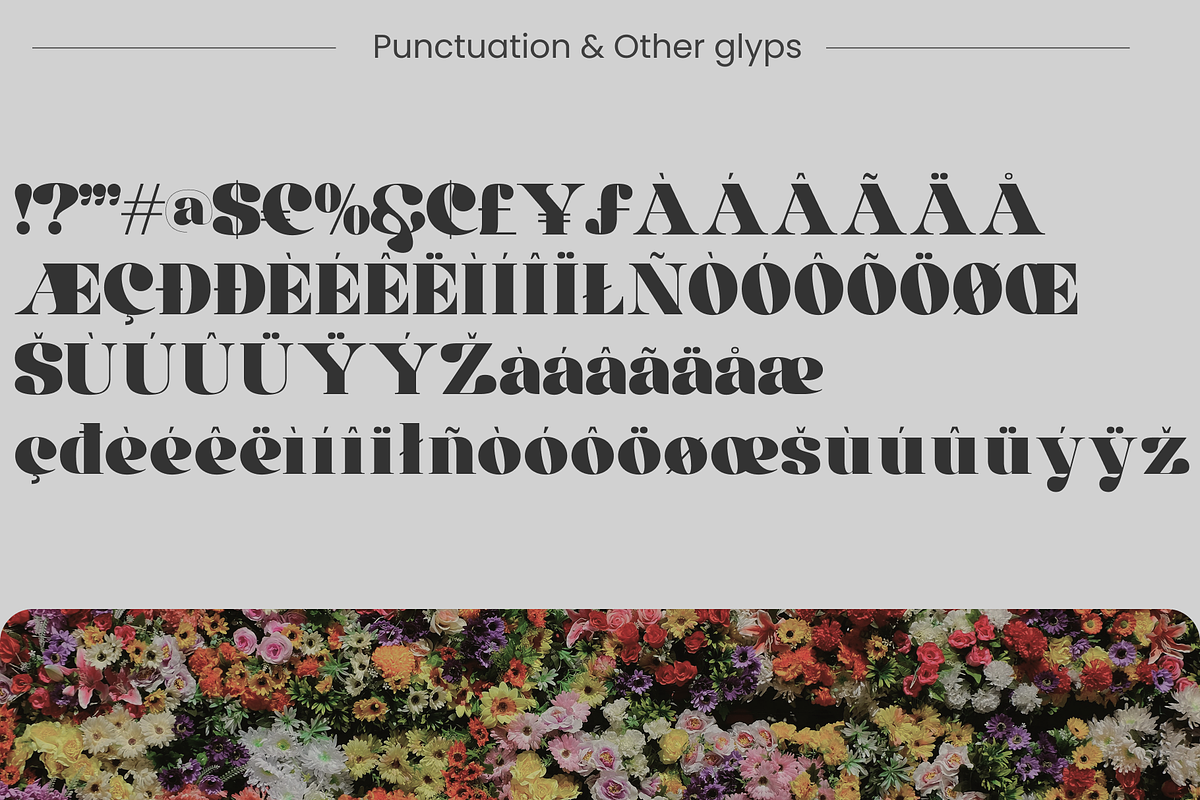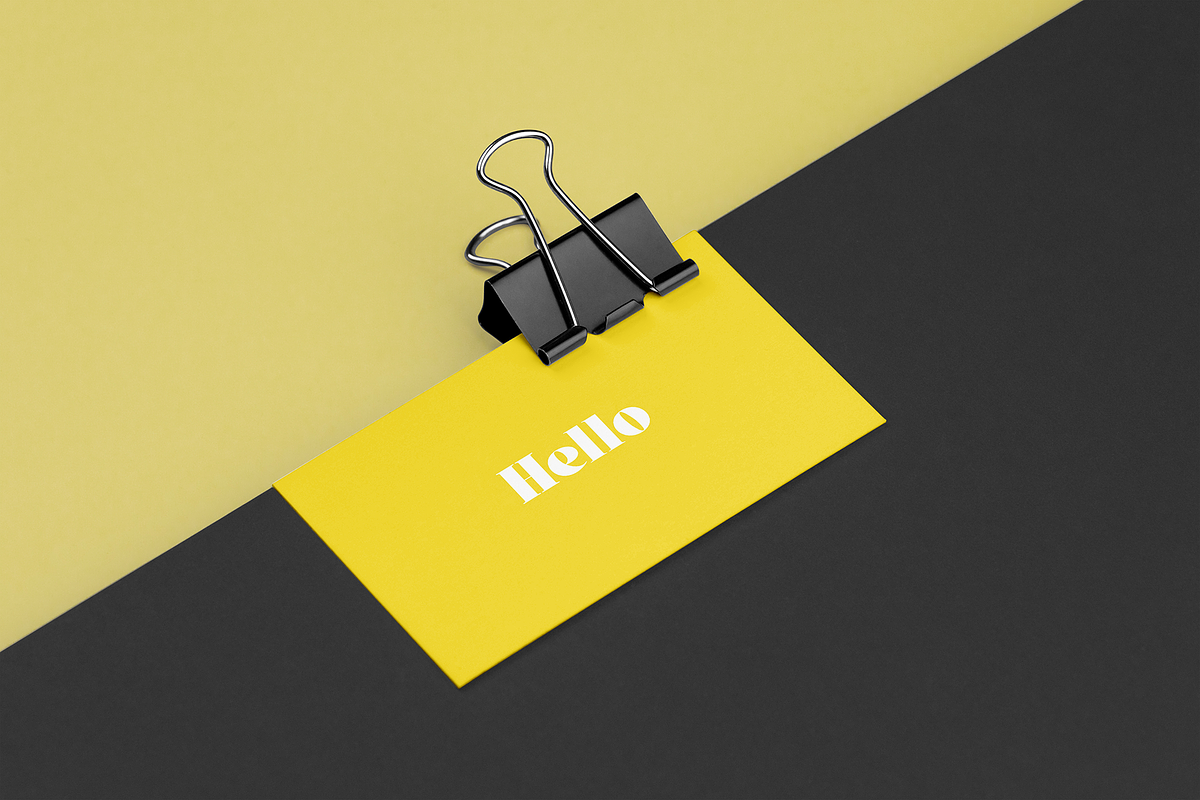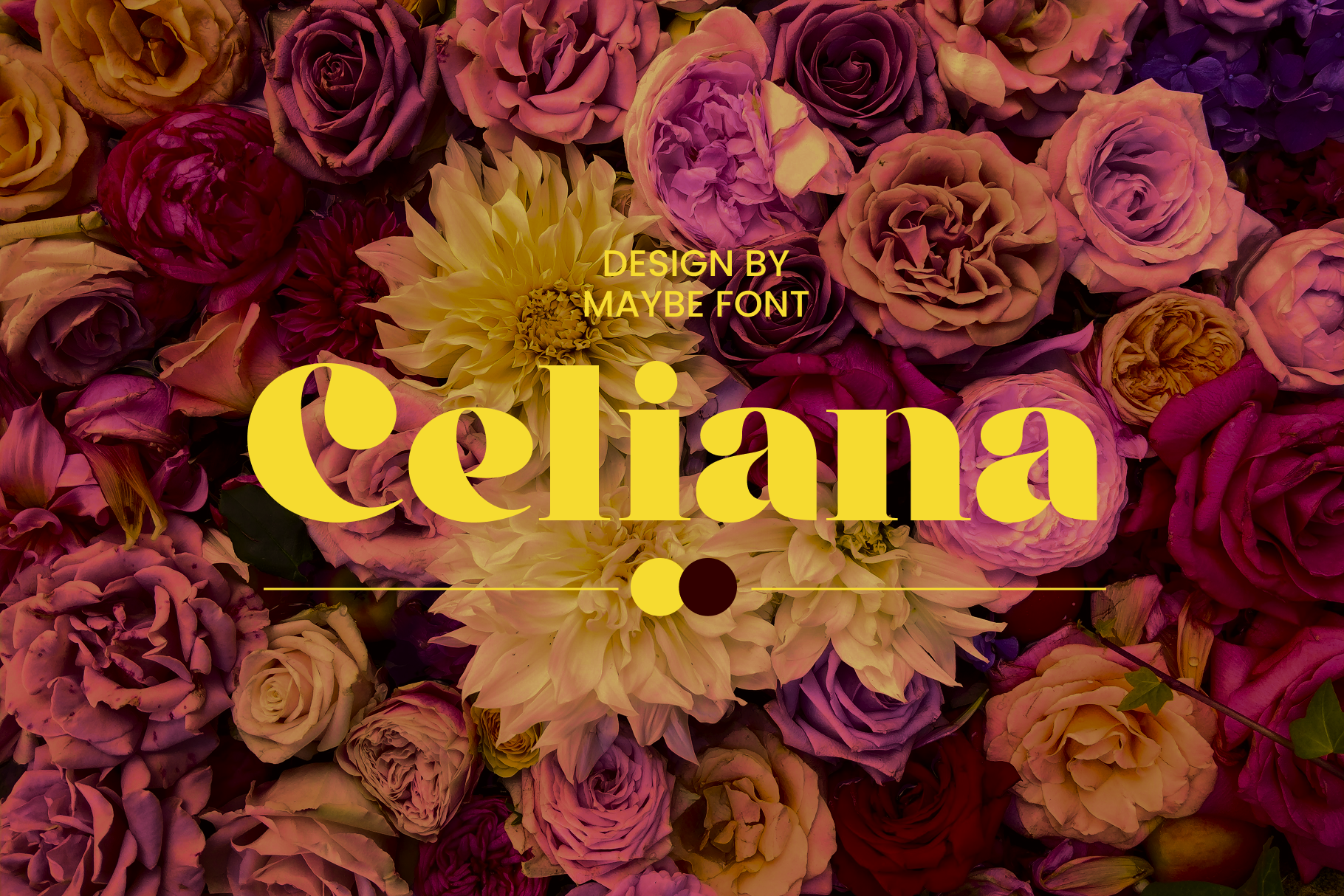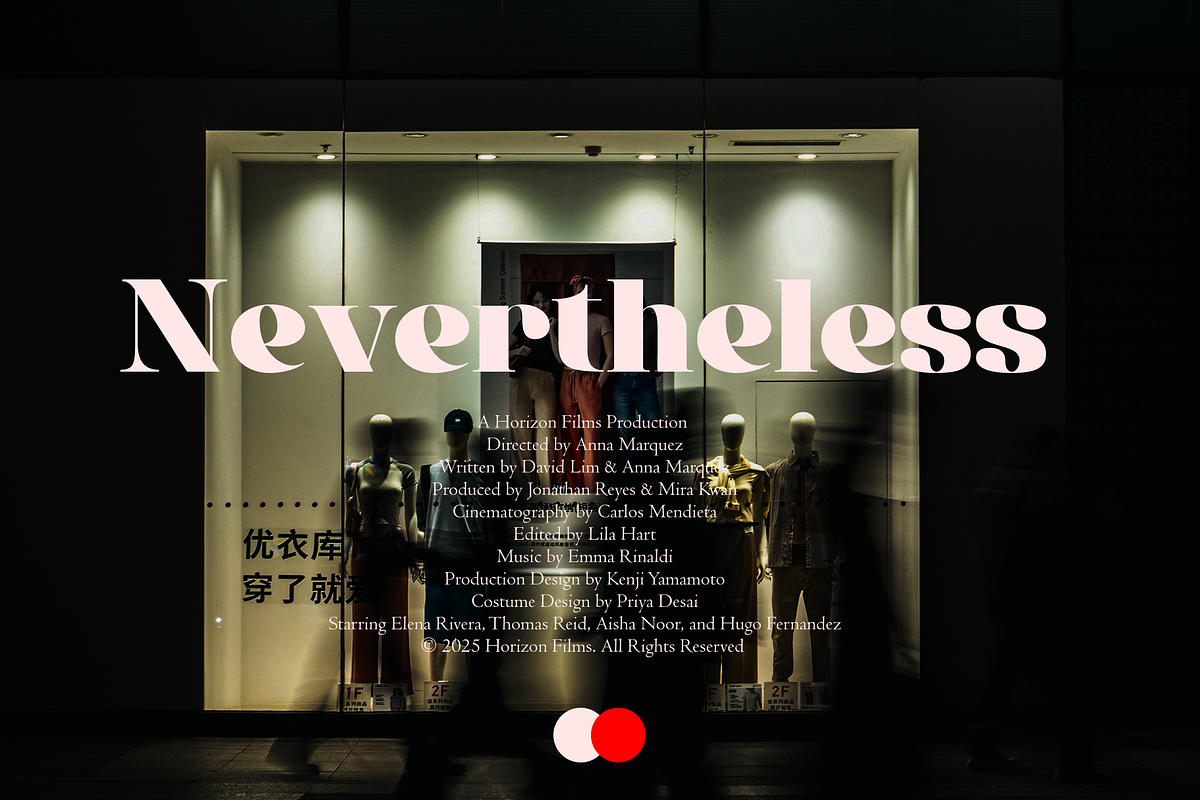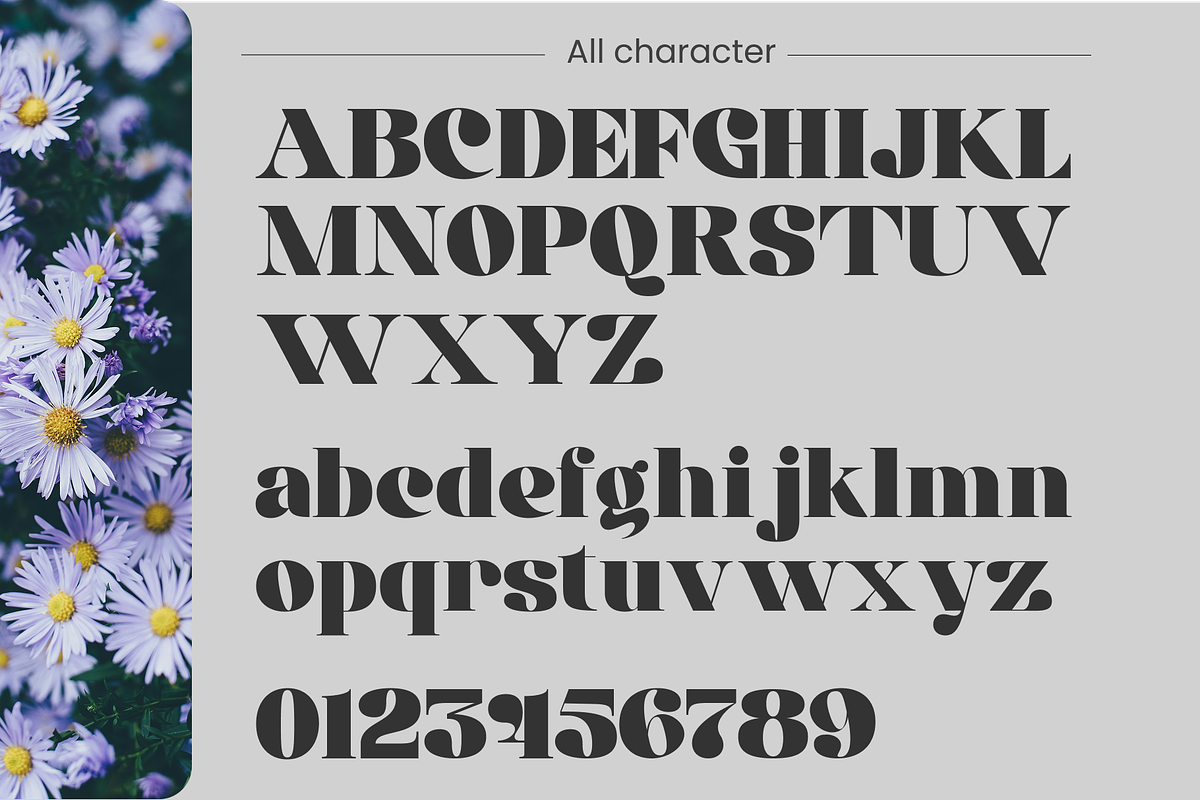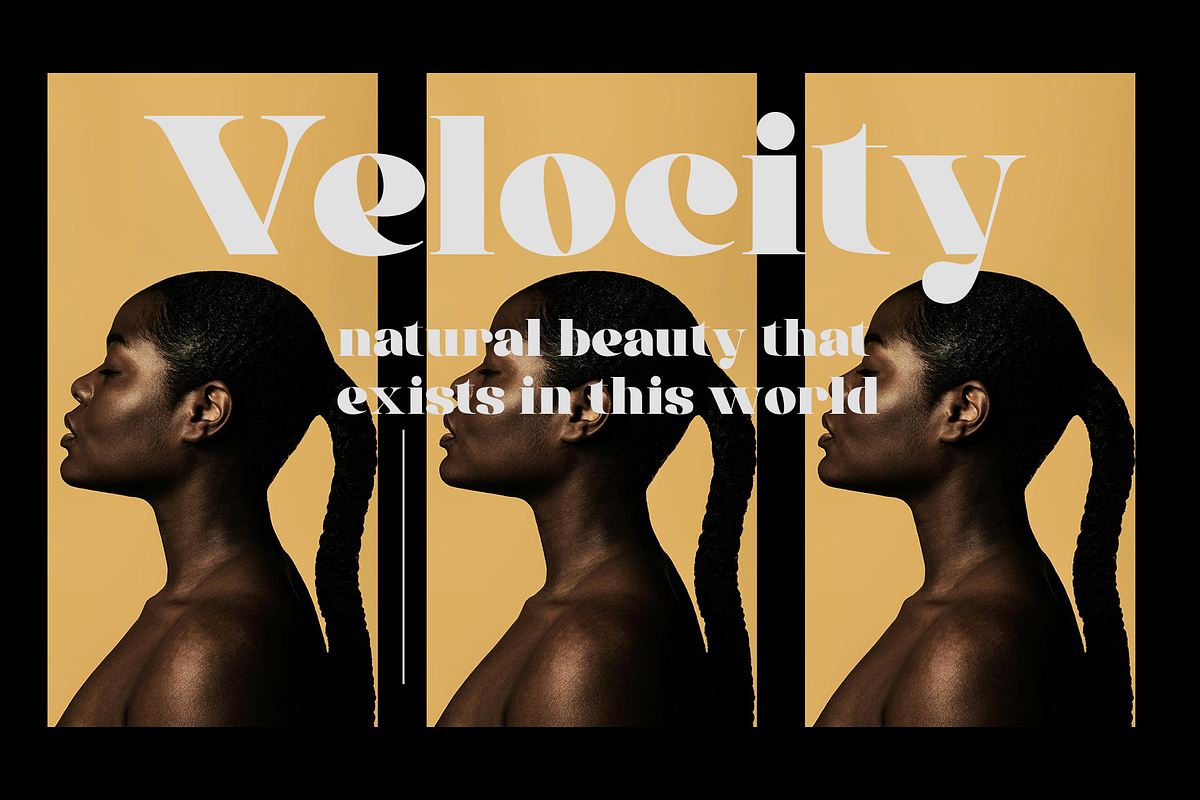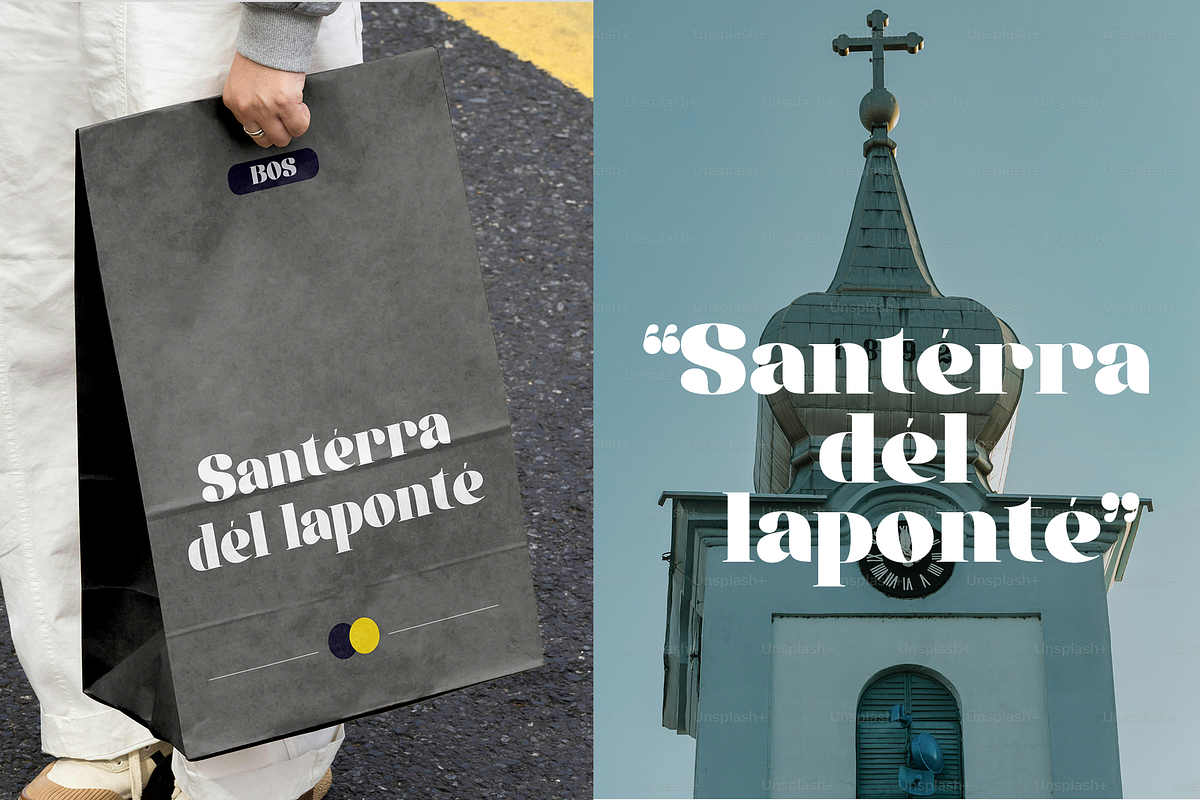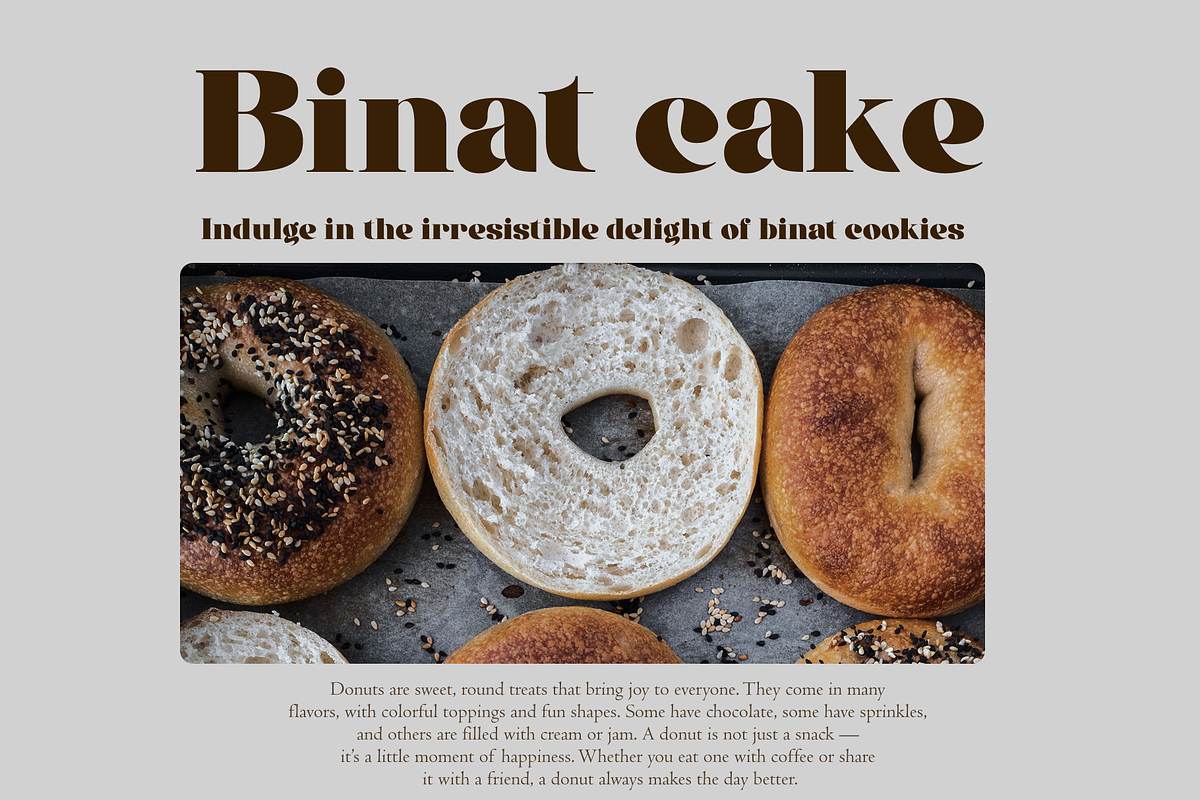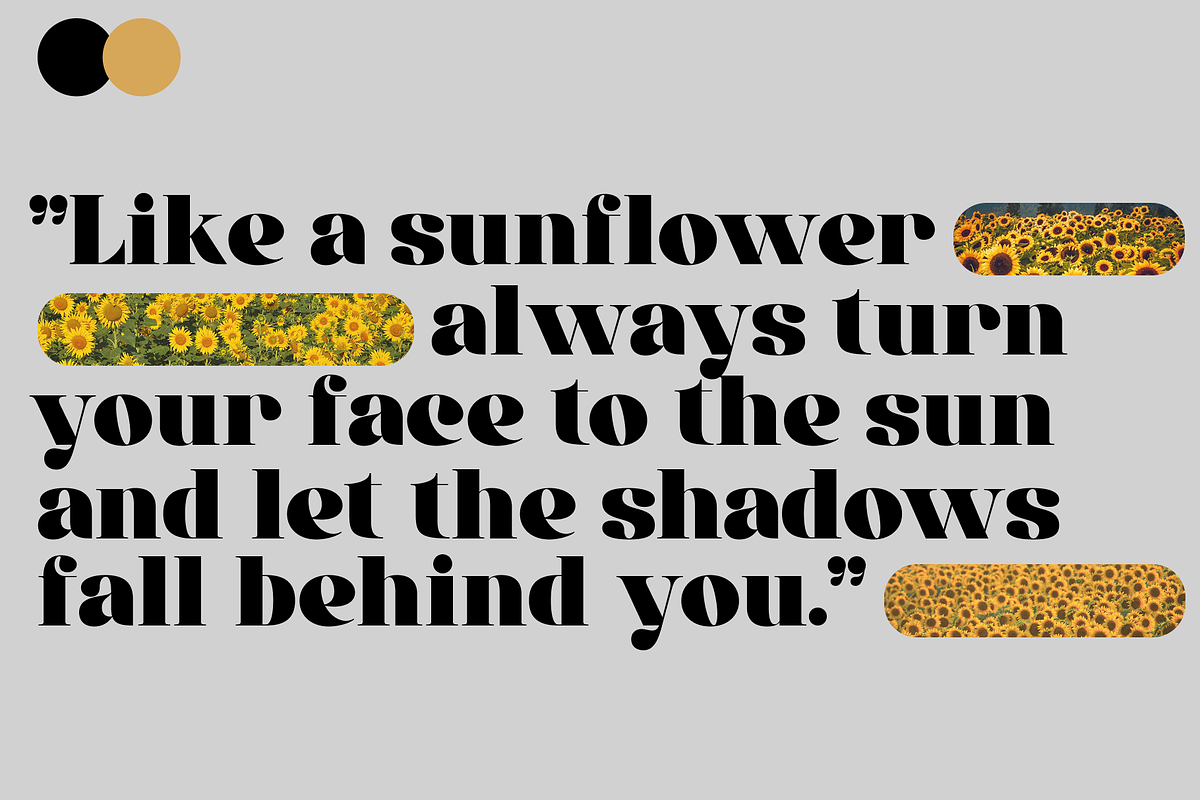
Celiana font
Celiana - a chic & elegant display modern serif with beautiful contrast. Specially designed for fashion-themed projects, perfectly suitable for creating elegant, chic, lifestyle designs such as logos, titles, and magazines, and more.
Celiana Features:
Symbols & Punctuation